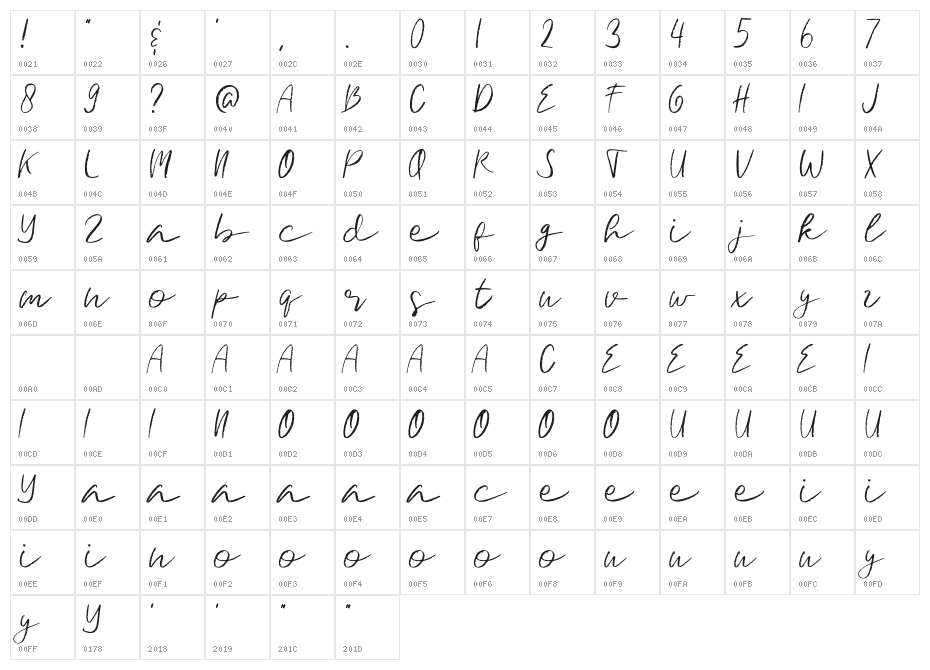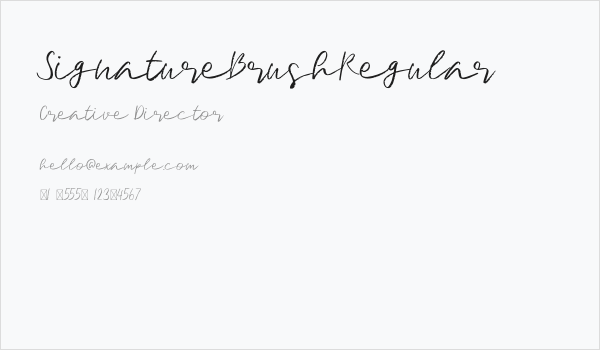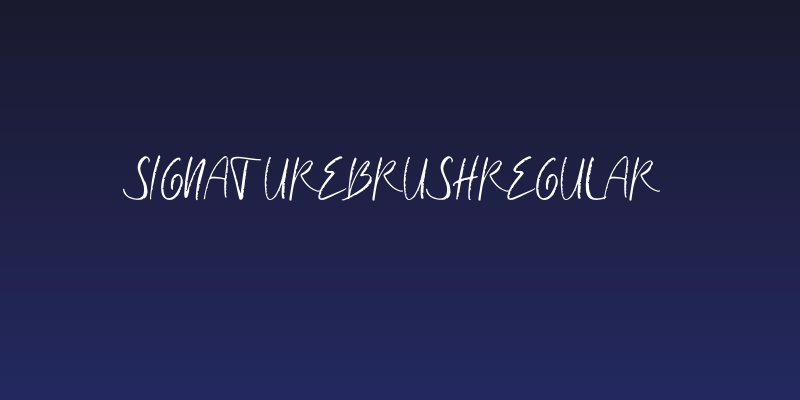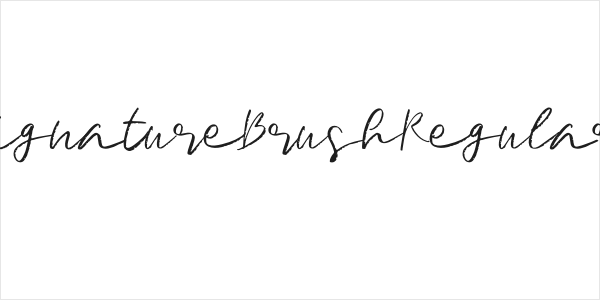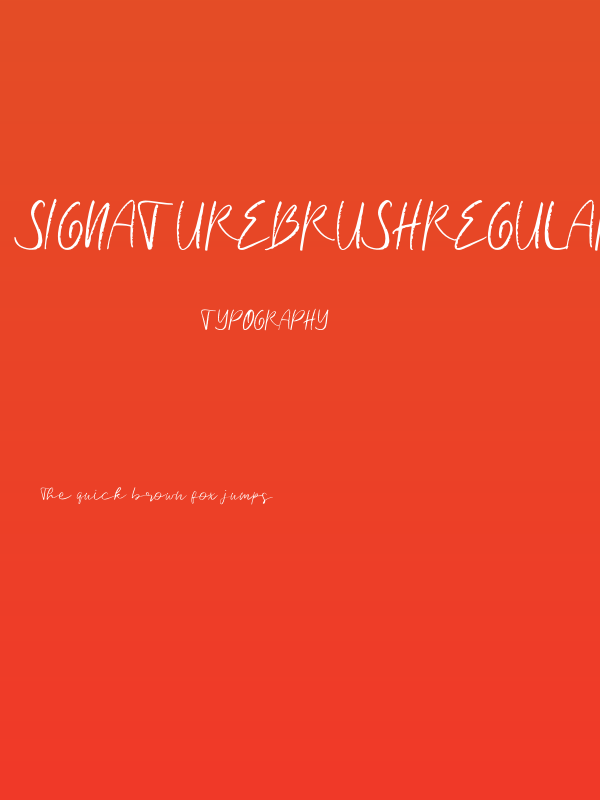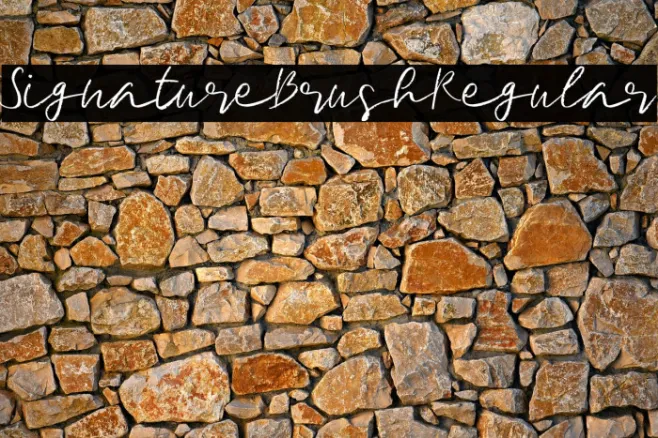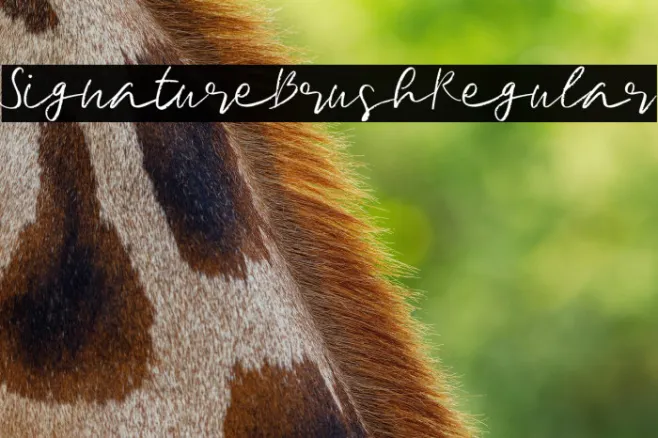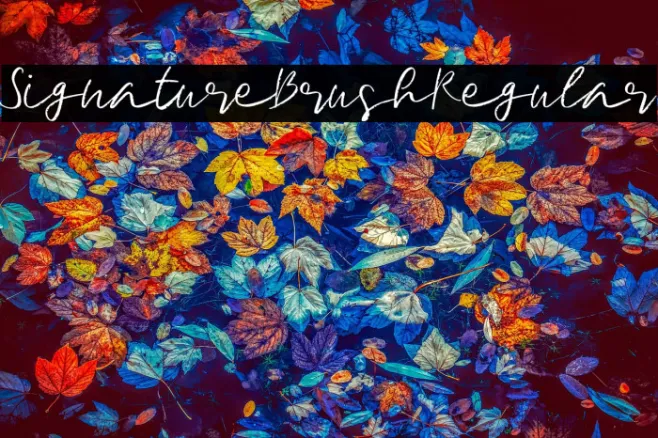
SignatureBrushRegular Font
SignatureBrushRegular Description
This font exudes a casual and artistic flair, reminiscent of a handwritten signature with a brush pen. The strokes are fluid and dynamic, giving each character a sense of movement and personality. The uppercase letters are bold and expressive, while the lowercase letters maintain a consistent flow, enhancing the script-like quality. The numbers are equally stylized, maintaining the overall aesthetic. The font's organic and slightly irregular lines add to its charm, making it ideal for creative projects that require a personal touch. The special characters, although not fully visible, suggest a continuation of the brush style, adding versatility to the font.
| Proposed Projects | Ideal for branding, invitations, greeting cards, and artistic projects that require a personal touch. |